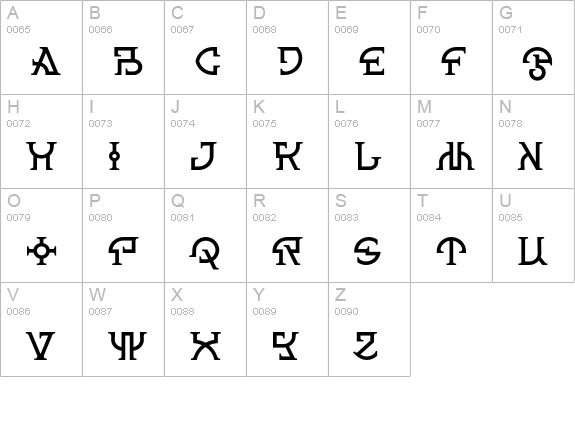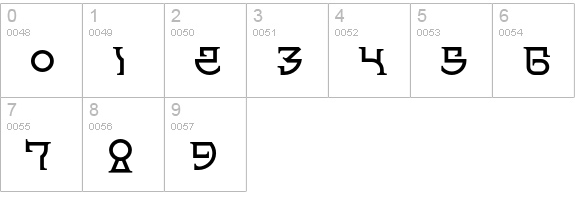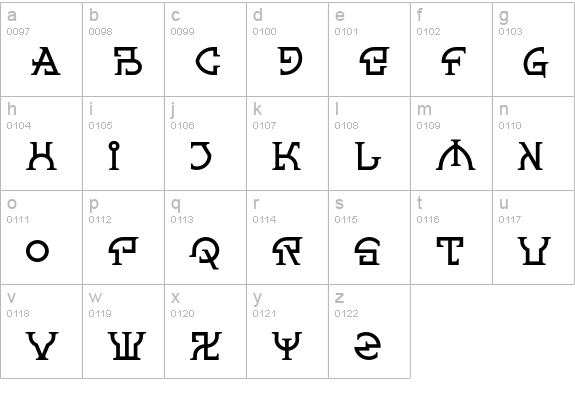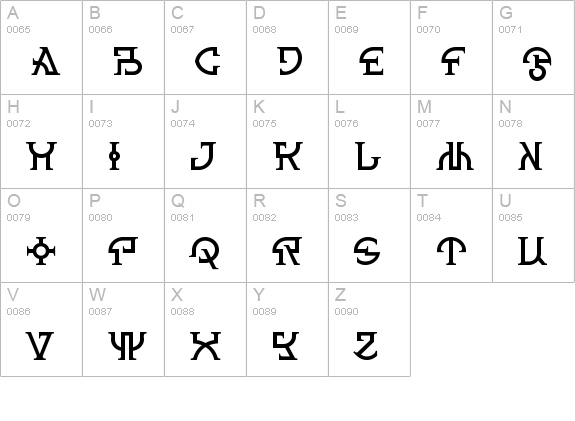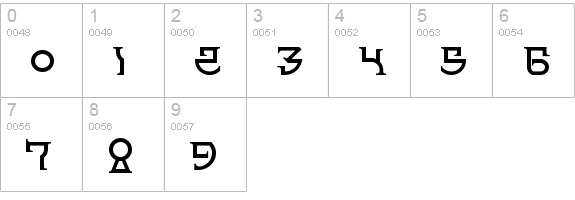
Spanner-BGauge Font Details
Introducing Spanner-BGauge, a strikingly bold and modern font that effortlessly captures attention with its unique blend of strength and sophistication. This typeface is perfect for those seeking to make a powerful statement in their designs. Spanner-BGauge features clean, sharp lines and a bold weight, making it ideal for headlines, titles, and branding projects. Its distinctive letterforms exude confidence and authority, commanding the viewer's attention with their precise shapes and impressive presence. This font's versatility is truly remarkable, allowing it to seamlessly adapt to a wide range of design styles, from sleek and minimalistic to bold and dynamic. Whether used for print materials or digital designs, Spanner-BGauge never fails to leave a lasting impression. What makes Spanner-BGauge even more remarkable is that it is freely available to download at FontsMarket.com. Yes, you read that right - this exceptional font can be yours without any cost. With just a few clicks, you can add this remarkable typeface to your arsenal and elevate your designs to new heights. So why wait? Embrace the power and elegance of Spanner-BGauge and unlock a world of design possibilities. Download this extraordinary font today at FontsMarket.com and let your creativity soar.